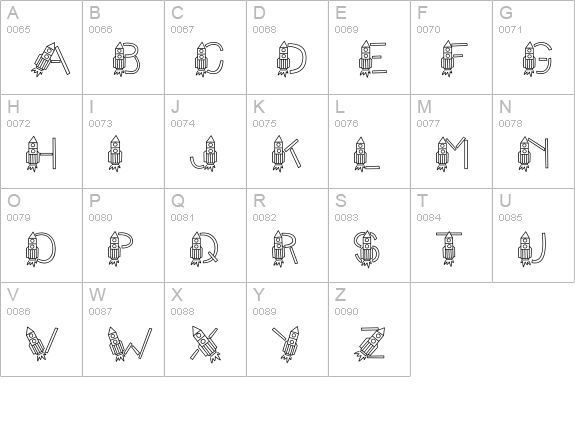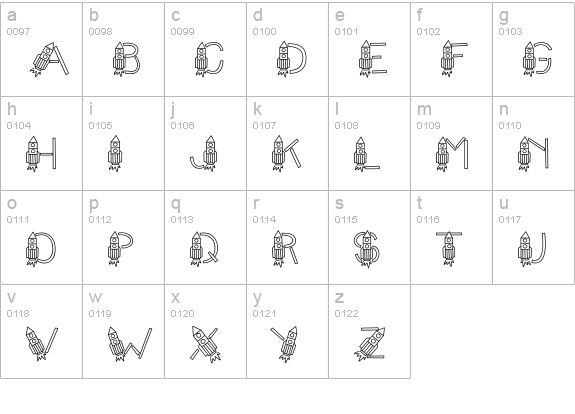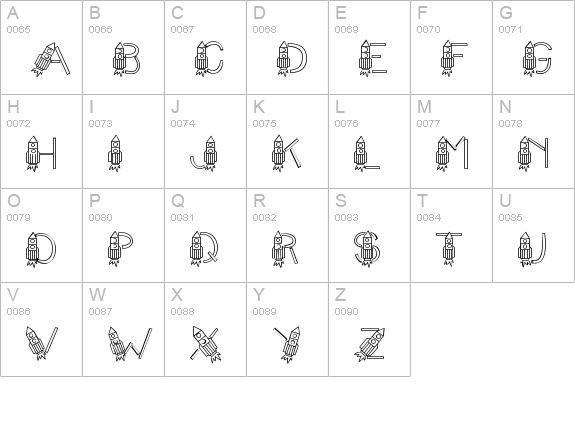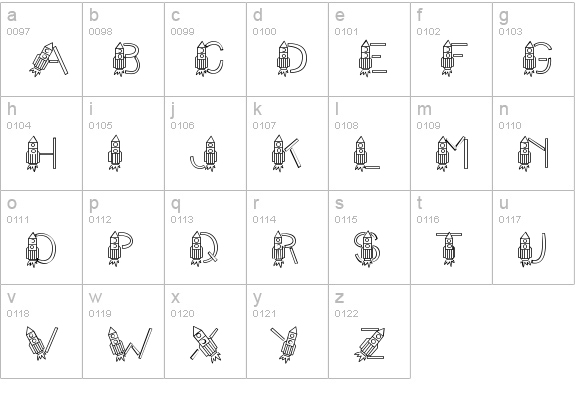
CK Rocket Ships Font Details
Introducing CK Rocket Ships font - a bold and futuristic typeface that takes your designs to new heights. This unique font features sleek lines and sharp edges, giving it a dynamic and modern appearance. Whether you're working on a logo, poster, or website design, CK Rocket Ships adds a touch of innovation and energy to your projects. The best part? CK Rocket Ships font is completely free to download at FontsMarket.com. Now you can elevate your designs without breaking the bank. Don't miss out on this opportunity to add a touch of space-age style to your work. Download CK Rocket Ships font today and blast off into a world of creativity!